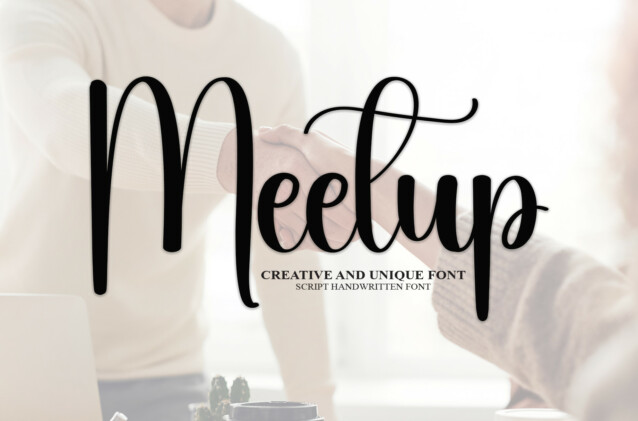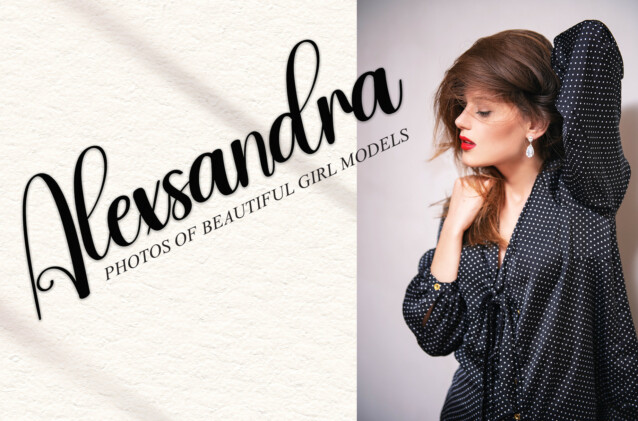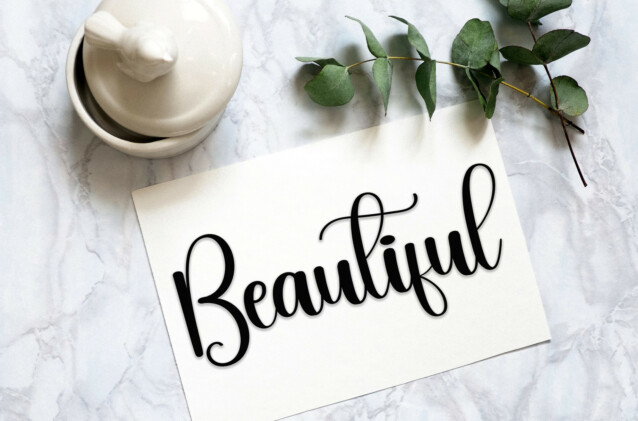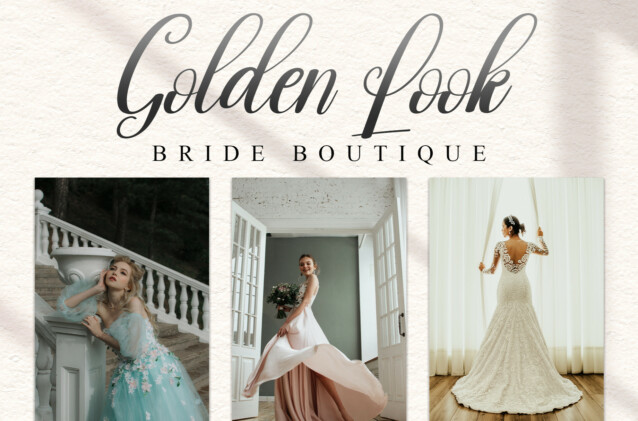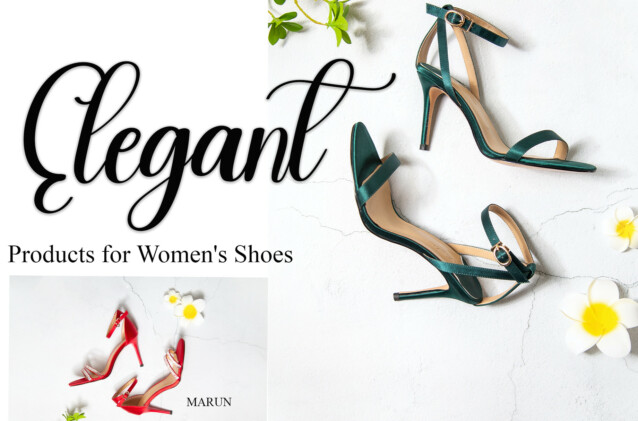
Meetup Script Font
Meetup Script Font is a sweet and friendly handwritten display font. Cute and fun, this font is ideal for writing wedding invitations, cards, or any other design that might need a playful touch!